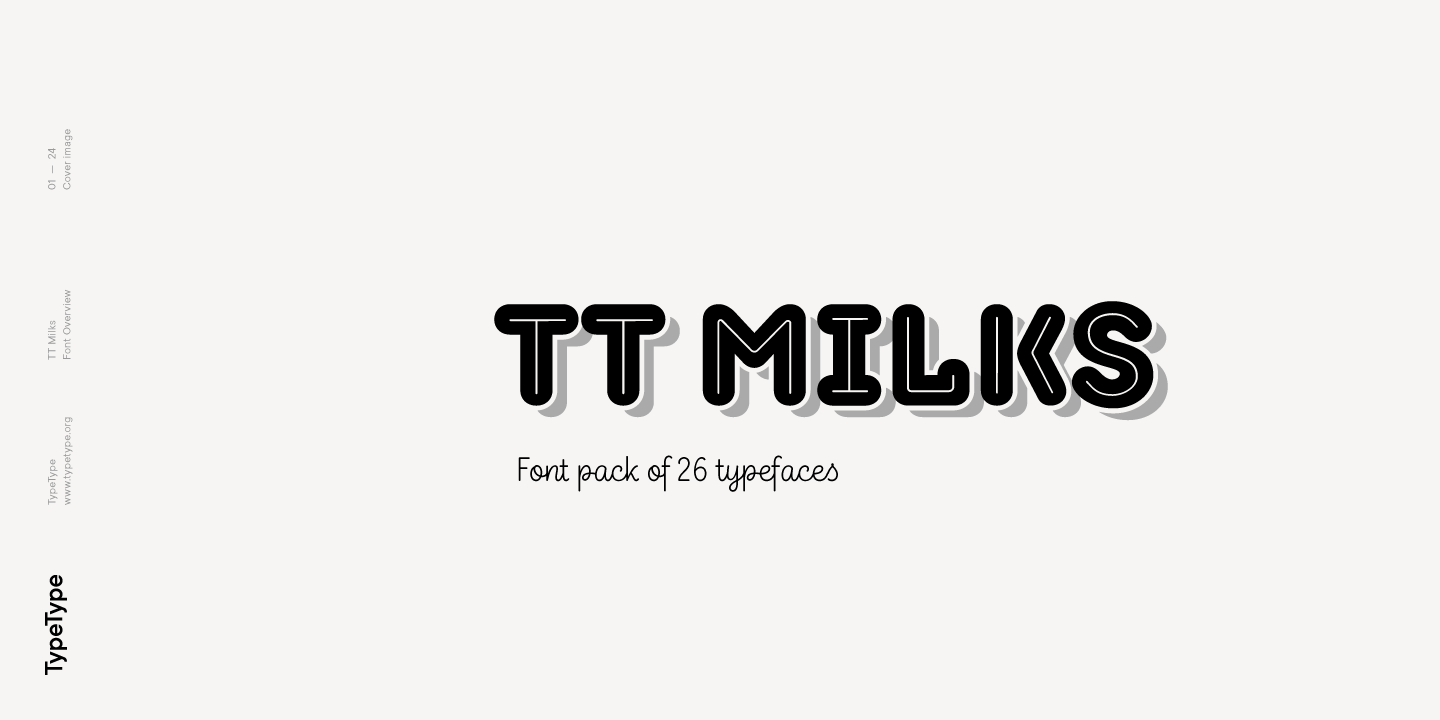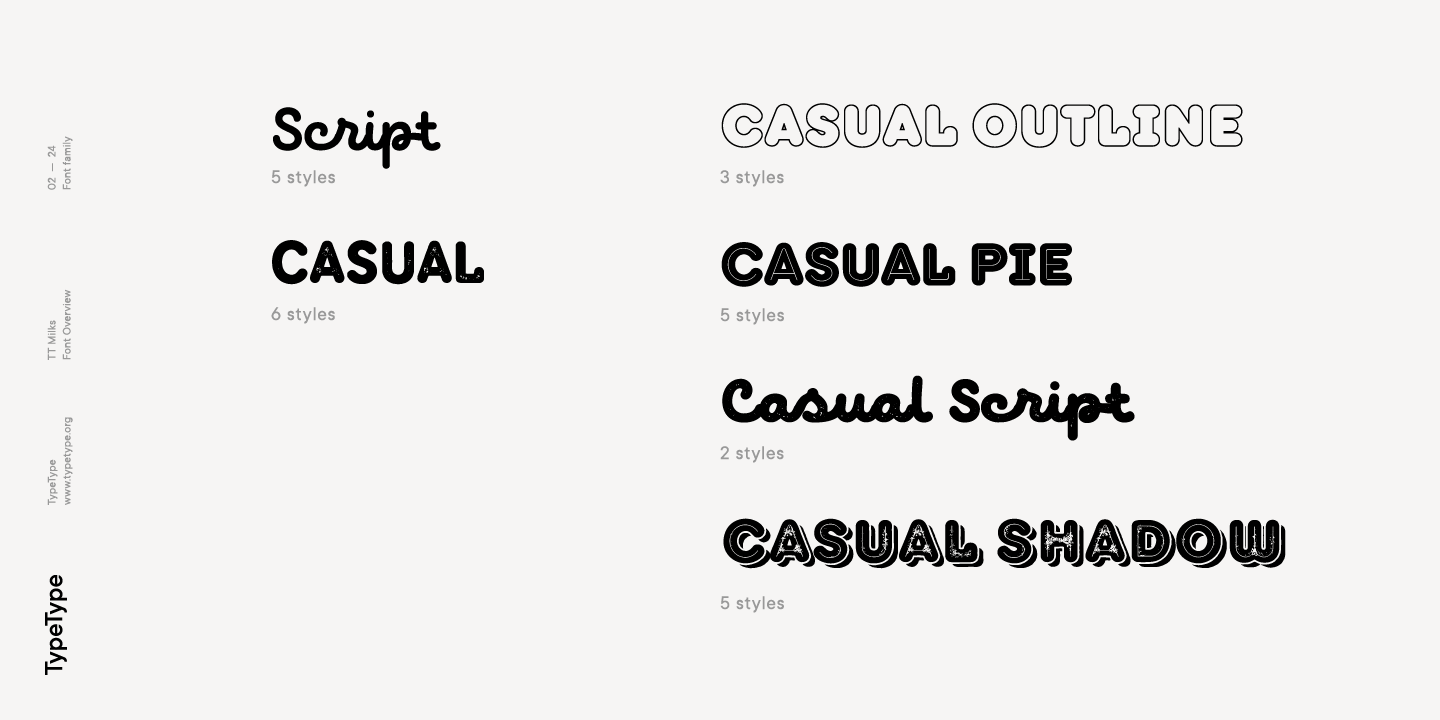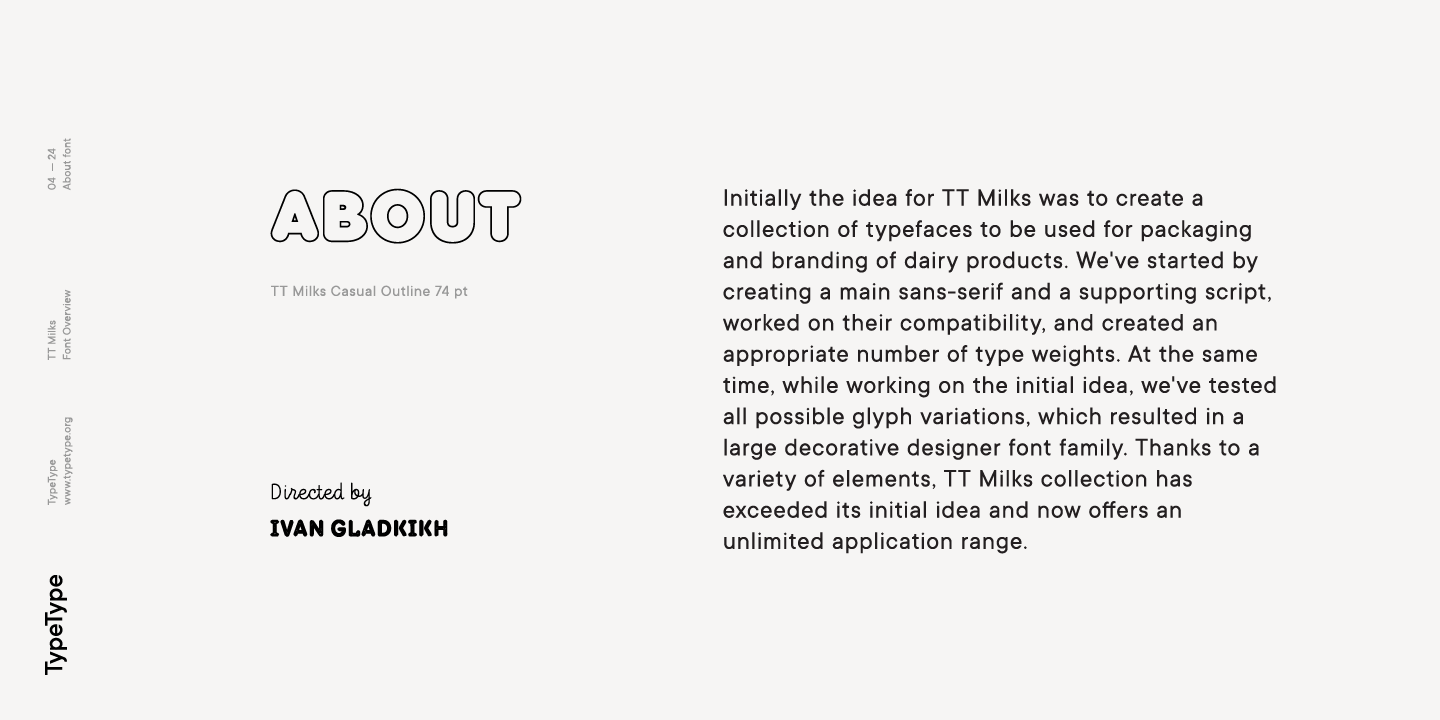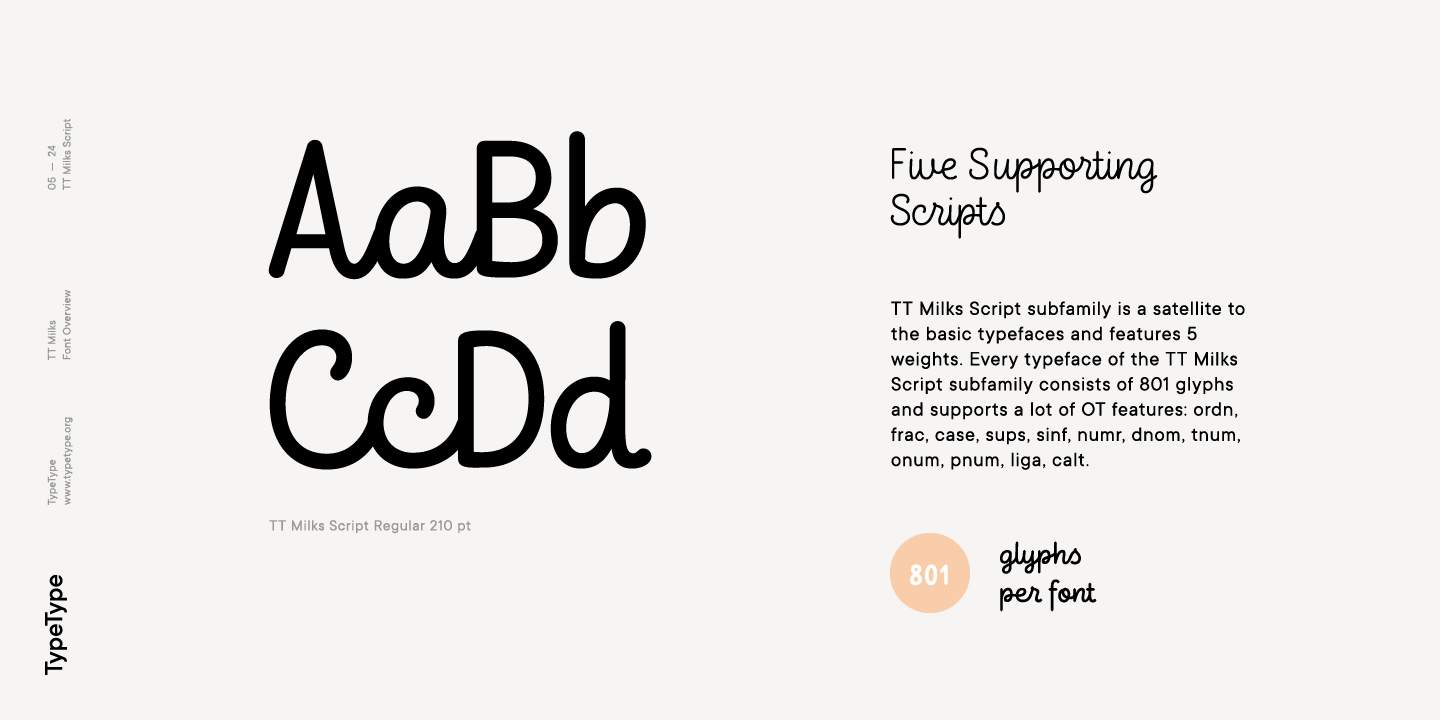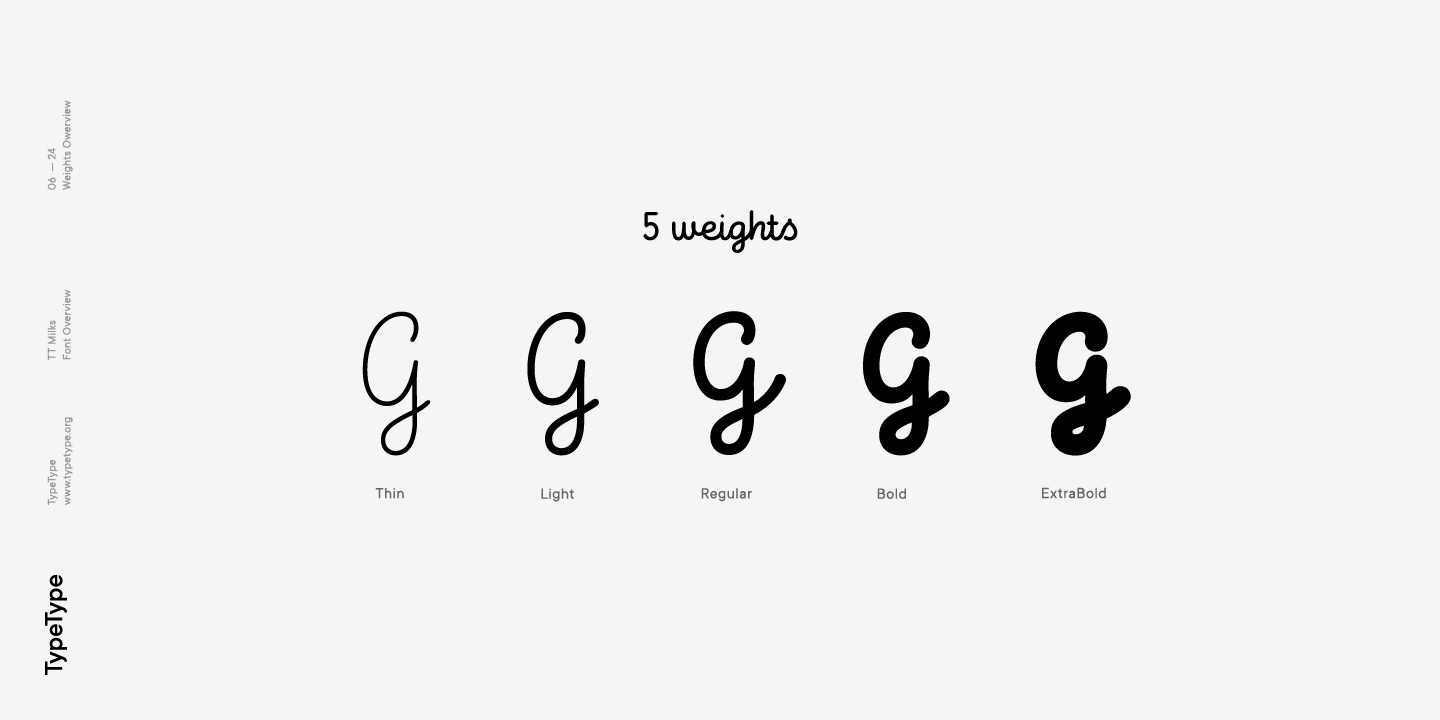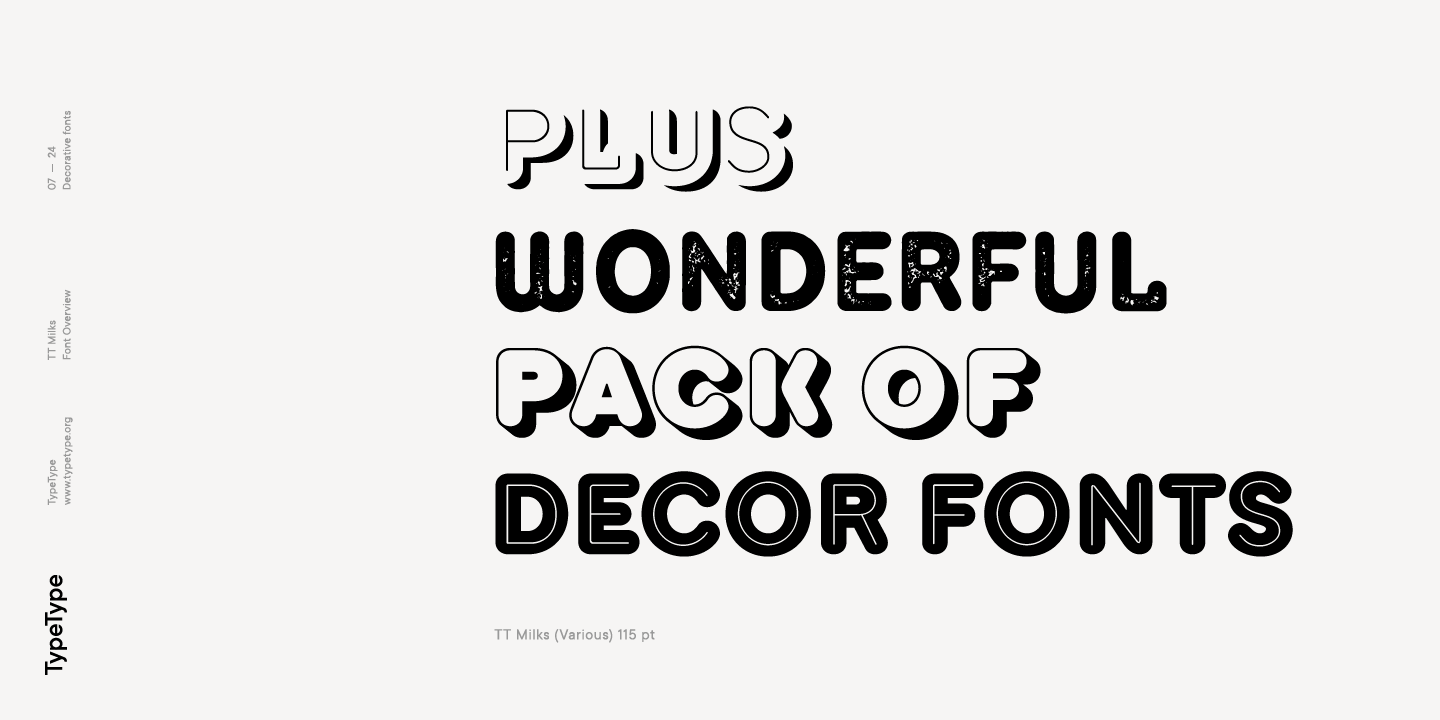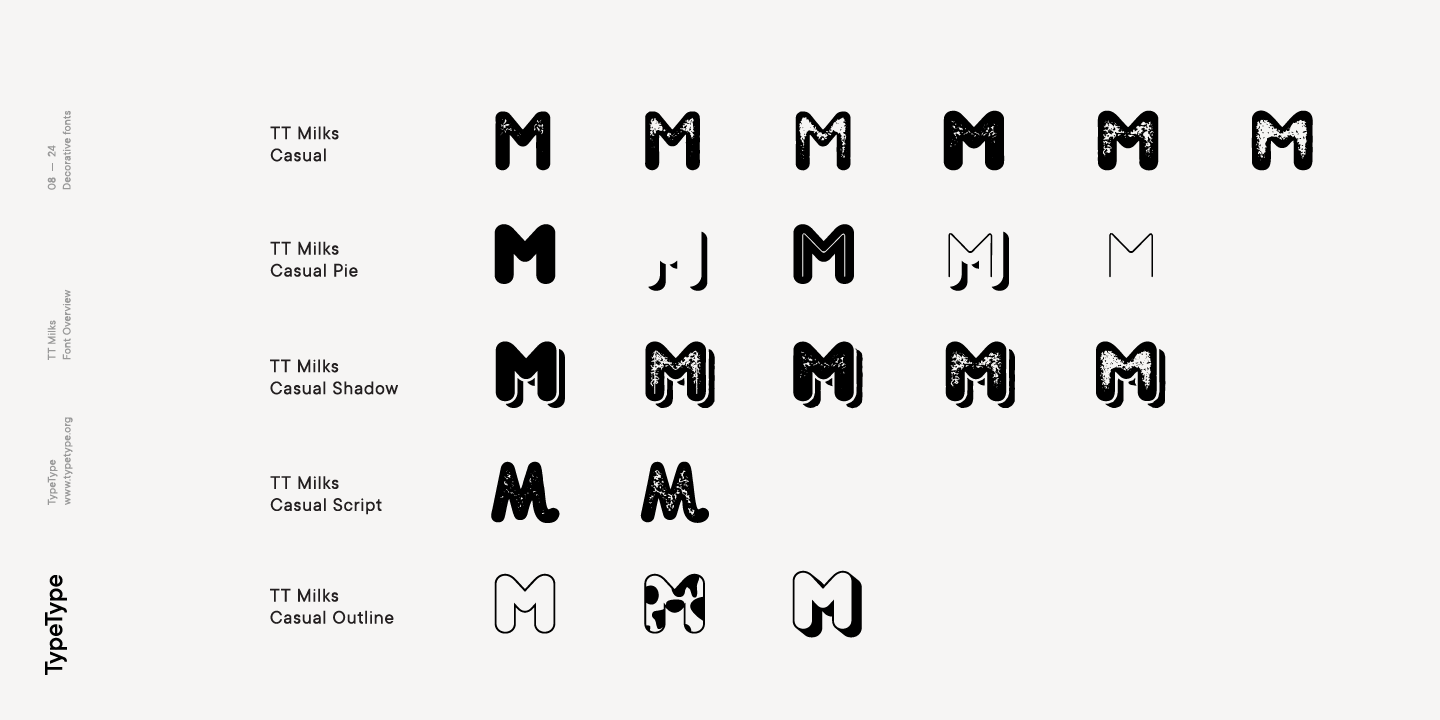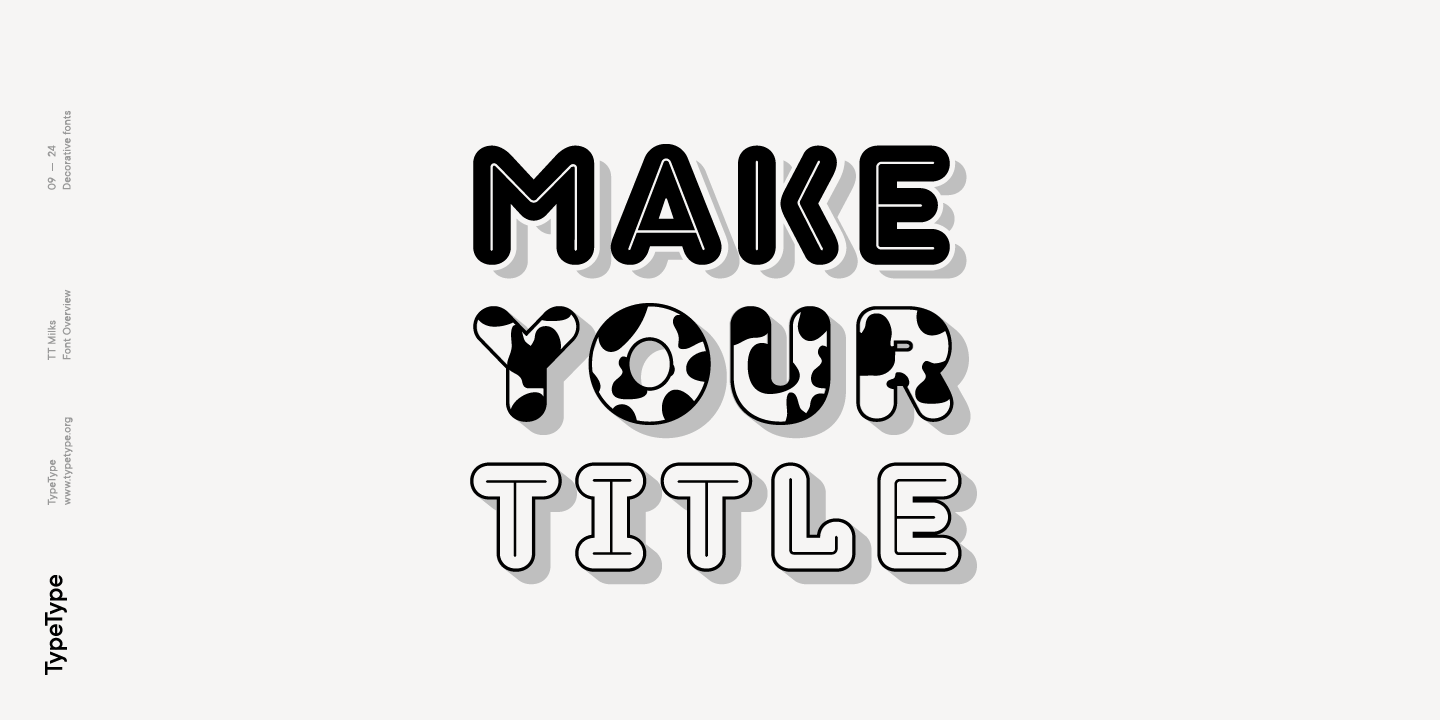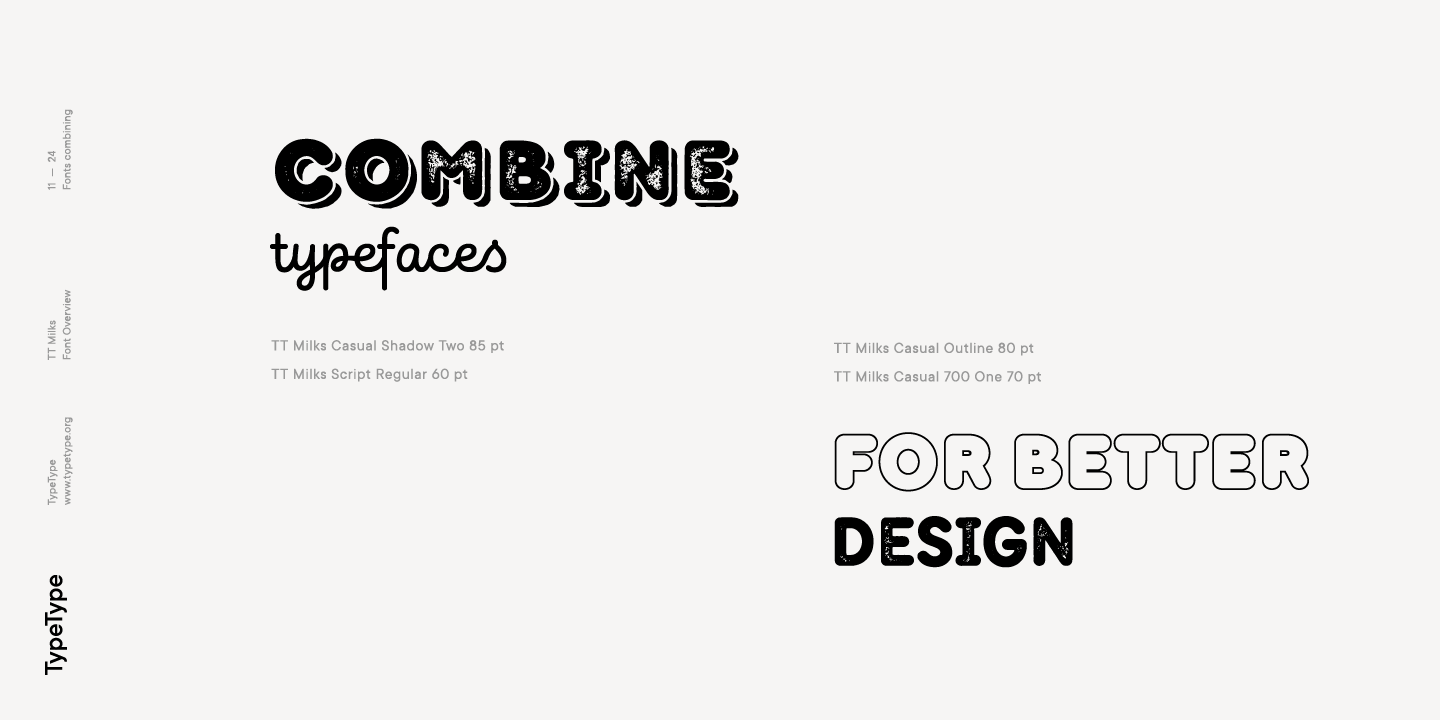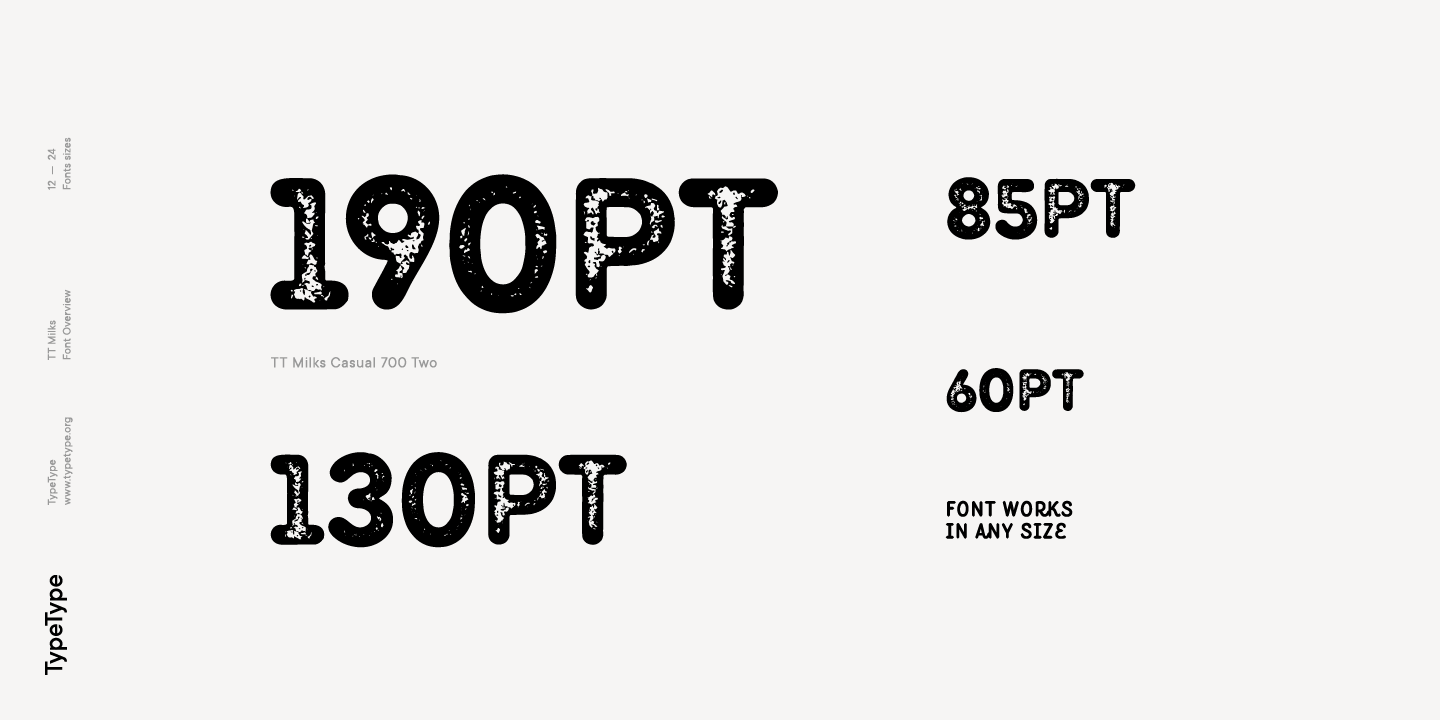
TT Milks
TT Milks is a design-forward typeface with gentle, charming personality. It includes decorative and handwritten styles.
A collection of fonts to be used for packaging and branding
While working on the initial idea, we’ve tested all possible glyph variations, which resulted in a large decorative designer font family. Thanks to a variety of elements, TT Milks collection has exceeded its initial idea and now offers an unlimited application range. TT Milks type collection includes several subfamilies: TT Milks Script, TT Milks Casual Script, TT Milks Casual, TT Milks Casual Shadow, TT Milks Casual Pie, TT Milks Outline.
All typefaces belonging to TT Milks Casual and TT Milks Outline subfamilies contain uppercase letters only
TT Milks Casual Shadow is a version with broader letter setting and shadow effects
About font family TT Milks
Initially the idea for TT Milks was to create a collection of fonts to be used for packaging and branding of dairy products. While working on the initial idea, we’ve tested all possible glyph variations, which resulted in a large decorative designer font family. Thanks to a variety of elements, TT Milks collection has exceeded its initial idea and now offers an unlimited application range.